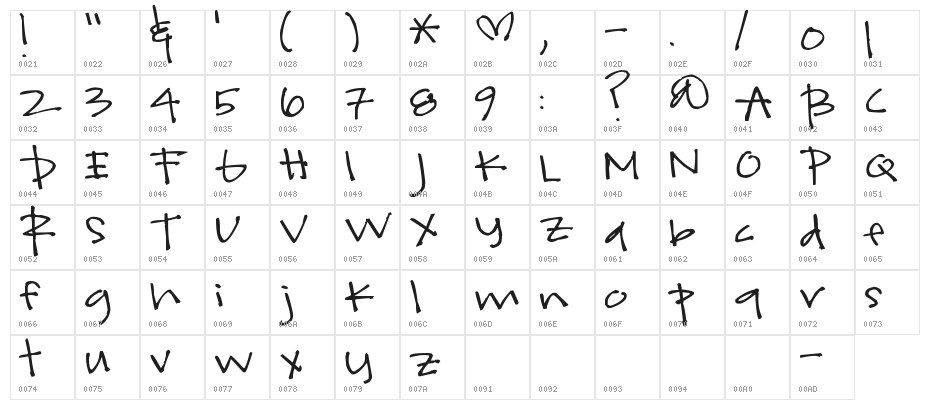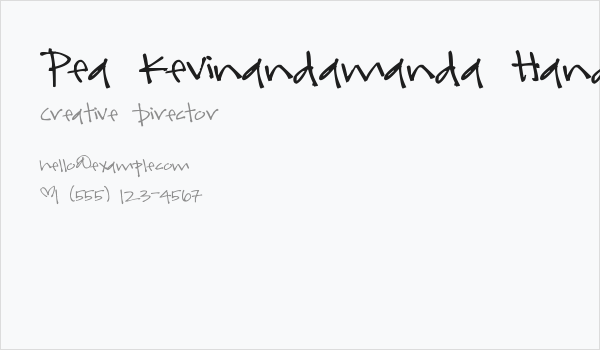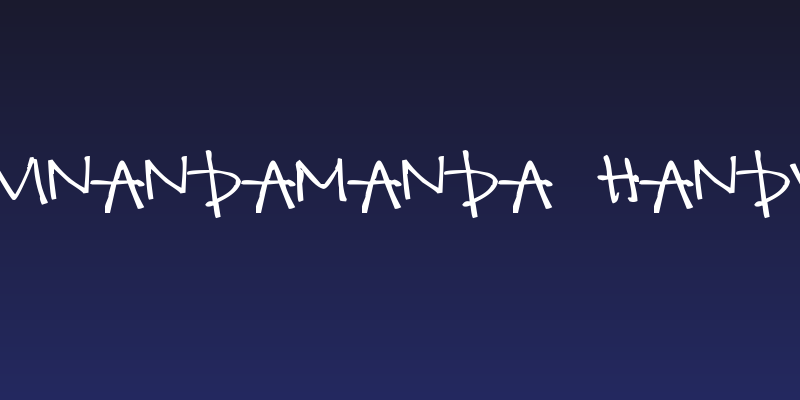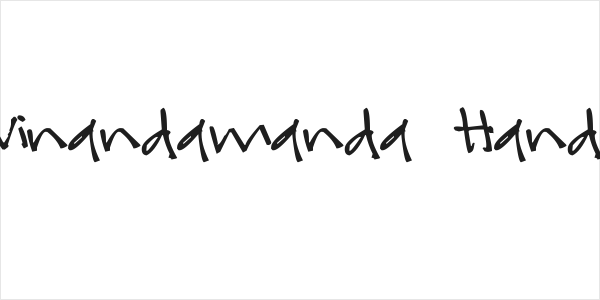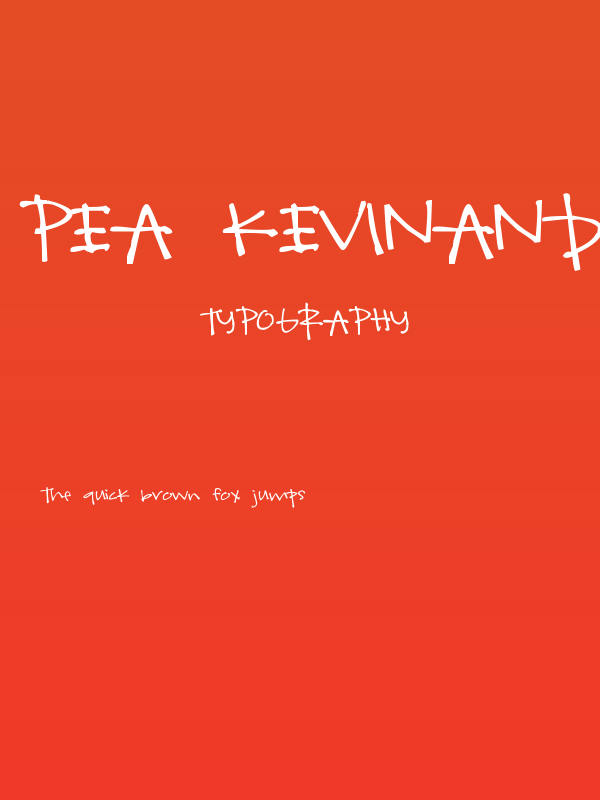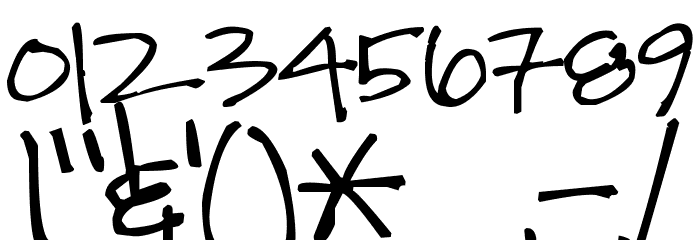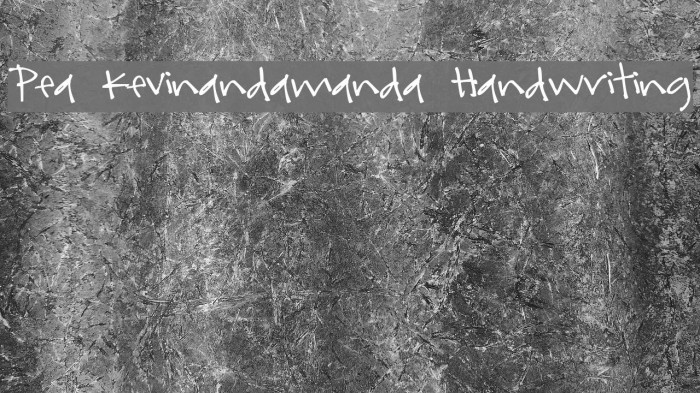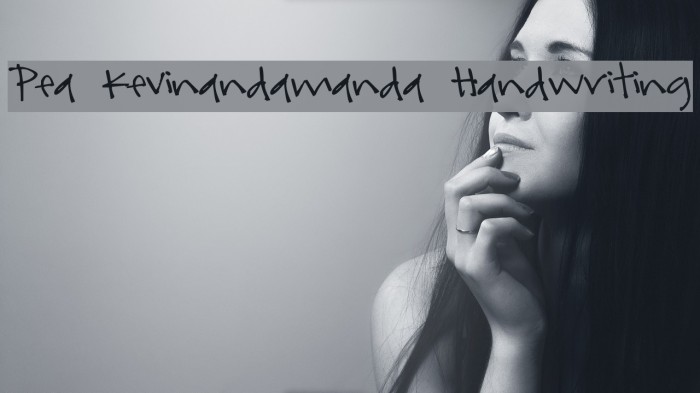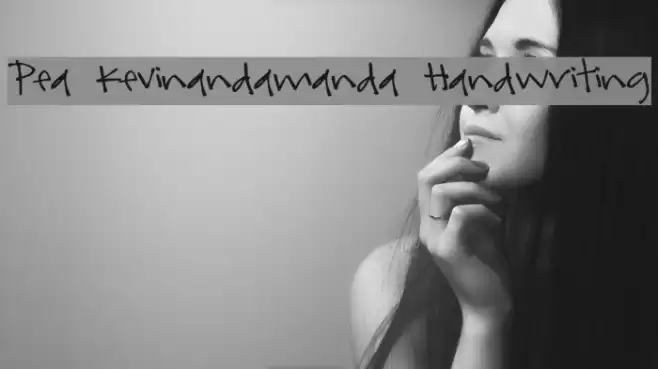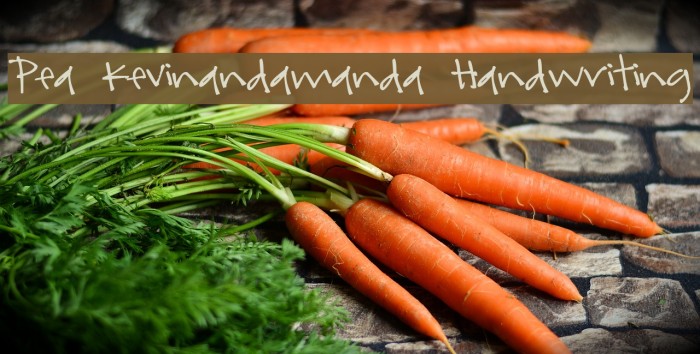
Pea kevinandamanda Handwriting Font
Pea kevinandamanda Handwriting Description
This font exudes a playful and casual handwritten style, characterized by its irregular strokes and spontaneous appearance. The letters are slightly slanted, giving it a dynamic and lively feel. The uppercase and lowercase letters maintain a consistent style, with some letters featuring unique loops and curves that add personality. The numbers and special characters follow the same informal style, making the font versatile for various creative projects. Its overall appearance is friendly and approachable, perfect for designs that aim to convey a personal touch.
| Overall Style | Casual |
| Use Case | Logos, Headlines, Informal Text |
| Proposed Projects | Ideal for personal notes, greeting cards, scrapbooking, and informal branding projects. |